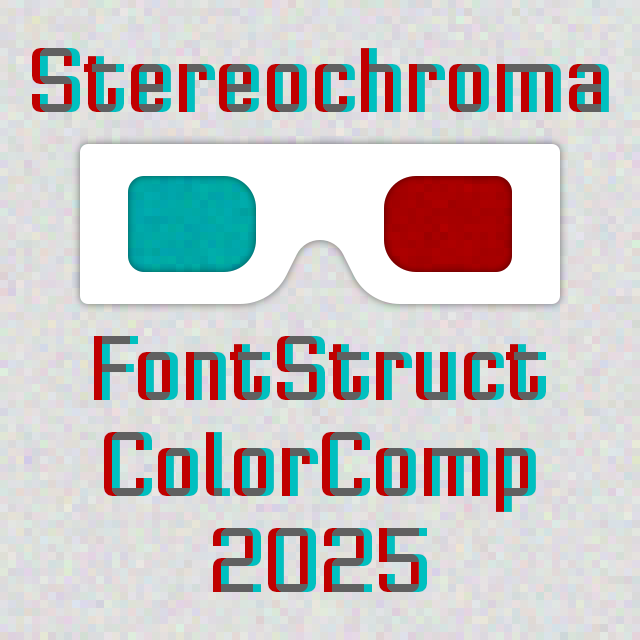
Strong, clean and neat, as usual! Good luck, pal.
Chromatic abberation is turning out to be popular in this Comp edition :) Nice font with great legibility as always.
Looking good. I tried this with a pair of Anaglyph 3D glasses and the letters are popping of the screen!
@four Good to know, I don't have 3D glasses so I couldn't check. :)
3d glass effect
Should you make Stereo and Stereochroma C?